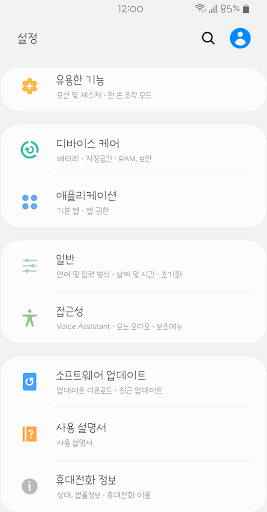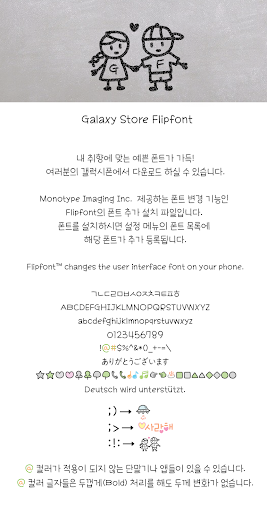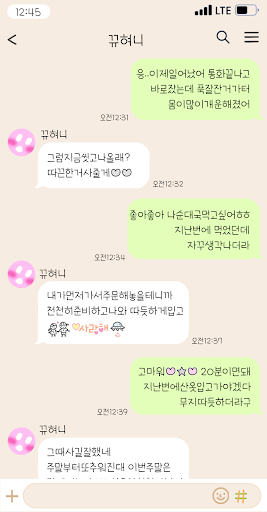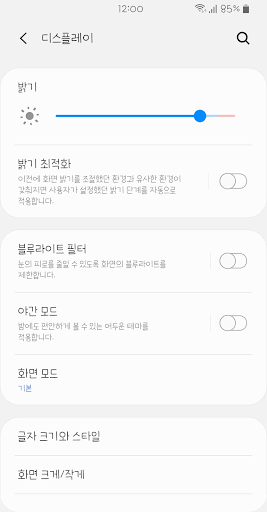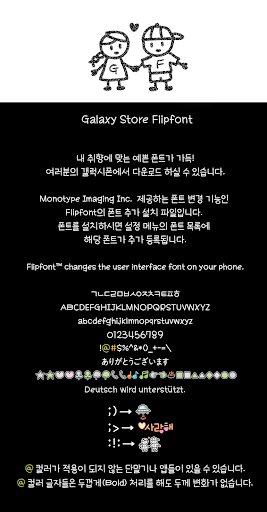
GFPenJunior
It is a junior version of the Gothic series written in pencil. It is a font that is a little clumsy and crooked, but full of sincerity written by pressing it down with a pencil. The letters are larger and cooler than the existing fonts, and there is a little more space between the letters to match the inner space of the letters. The font with good readability creates a pure and relaxed format. (Depending on Android OS or app, color dingbet may not be supported.)